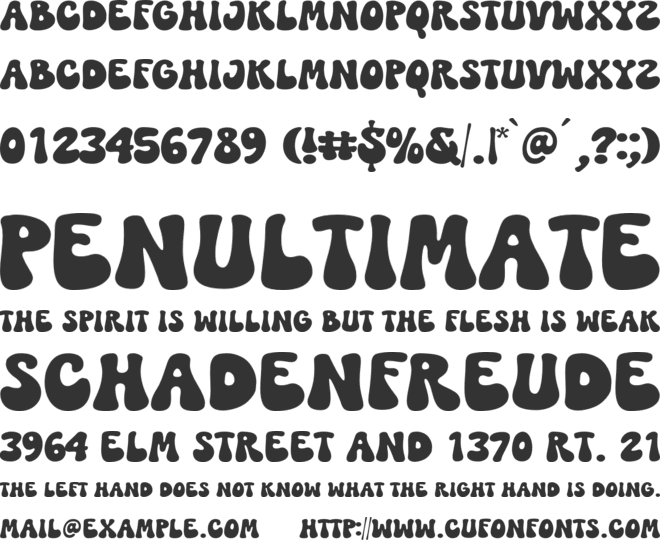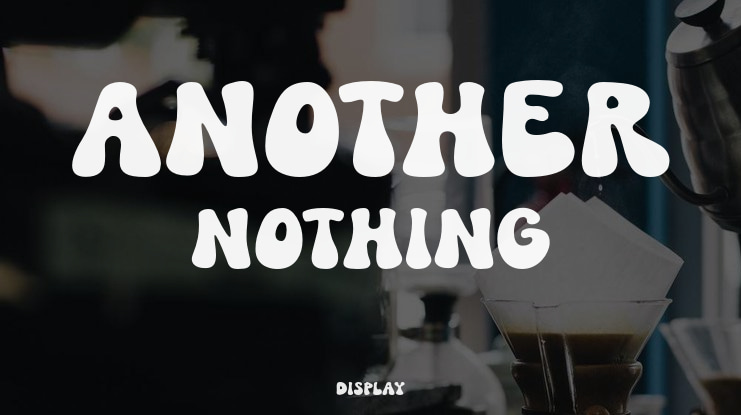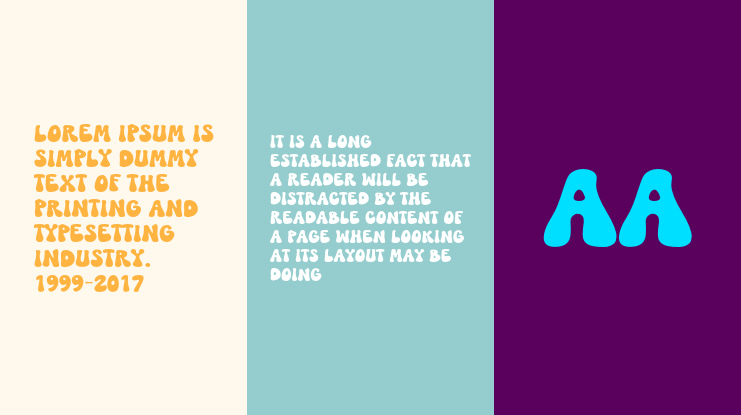
Another Nothing Font
Another Nothing – A Groovy, Psychedelic Display Font
Say hello to Another Nothing – a bold, bubbly font that brings retro vibes with a fun, modern twist! Inspired by 70s psychedelic styles, this display font is full of personality and perfect for designs that want to stand out and make a statement.